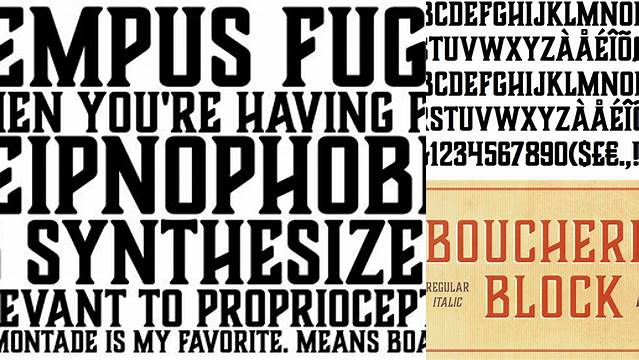
Hey guys! Are you looking for a bold, impactful, and free font to elevate your design projects? Look no further! Let's dive deep into the world of Boucherie Block Bold, a fantastic typeface that's making waves in the design community. In this comprehensive guide, we'll explore everything you need to know about this font, from its origins and characteristics to its best uses and where to download it. Get ready to unleash your creativity with Boucherie Block Bold!
What is Boucherie Block Bold?
Let's start with the basics. Boucherie Block Bold is a display font known for its strong, blocky, and vintage-inspired aesthetic. Think old-school butcher shops, classic signage, and a touch of industrial charm. This font exudes confidence and commands attention, making it an excellent choice for headlines, logos, posters, and anything else that needs to make a statement. Its robust letterforms and clean lines give it a timeless quality, blending the best of vintage appeal with modern readability. One of the key characteristics of Boucherie Block Bold is its unwavering boldness. Each character is designed to be substantial and impactful, ensuring that your message is delivered with maximum force. The letterforms are carefully crafted to maintain legibility even at large sizes, making it a versatile option for a wide range of applications. This makes it a favorite among designers who appreciate fonts that combine aesthetic appeal with practical functionality. Whether you're working on a branding project, a website design, or a print campaign, Boucherie Block Bold can add a touch of retro sophistication and visual punch. Its distinctive style helps your work stand out, making it an invaluable asset in any designer's toolkit. The font’s versatility extends to various design contexts, from the rustic charm of vintage-inspired projects to the bold statements of modern advertising. Its ability to adapt to different styles and themes makes it a reliable choice for any project that calls for a strong, classic typeface. So, if you’re aiming to create designs that resonate with a sense of timeless appeal and impactful presence, Boucherie Block Bold is a font that deserves your attention. Its robust structure and elegant design blend seamlessly, providing a unique typographic solution for your creative needs.
So, what makes Boucherie Block Bold so special? Let's break down its key features:
Bold and impactful: As the name suggests, this font is all about making a statement. Its thick strokes and solid letterforms demand attention and create a powerful visual presence. The boldness of Boucherie Block Bold ensures that your text stands out, whether it's used in a headline, a logo, or a promotional poster. The font's robust nature adds weight and emphasis to your message, making it ideal for designs that need to grab the viewer's attention instantly. In a world where visual communication is key, having a font that can deliver impact is crucial, and Boucherie Block Bold does just that. Its design is not just about being loud; it's about being authoritative and clear, ensuring your message is understood and remembered. This makes it a go-to choice for designers looking to convey strength and confidence in their work.
Vintage-inspired design: Boucherie Block Bold draws inspiration from classic signage and butcher shop typography. This gives it a nostalgic feel that can add character and charm to your designs. The vintage aesthetic of the font evokes a sense of history and craftsmanship, making it perfect for projects that aim to create a timeless or retro vibe. The design elements reminiscent of old-fashioned signs and labels bring a unique authenticity to your work, helping to connect with audiences on an emotional level. This vintage touch is not just about aesthetics; it's about storytelling. By using Boucherie Block Bold, you're adding a layer of narrative to your design, suggesting quality, tradition, and a connection to the past. It’s an excellent way to infuse your projects with a sense of heritage and timelessness, making it particularly effective for branding, packaging, and promotional materials that seek to convey a sense of history and reliability.
Clean and legible: Despite its bold appearance, Boucherie Block Bold is surprisingly easy to read. The letterforms are well-defined and spaced, ensuring clarity even at smaller sizes. The font's legibility is a crucial aspect of its design, as it ensures that the boldness doesn't come at the expense of readability. The clean lines and well-formed characters make it easy for the eye to follow, whether it's used in a short headline or a longer paragraph. This balance between boldness and clarity is what makes Boucherie Block Bold such a versatile typeface. It allows designers to use a strong, impactful font without sacrificing the ability to communicate effectively. The attention to detail in the letterforms ensures that each character is distinct and easily recognizable, which is essential for creating designs that are both visually striking and functional. This makes it a reliable choice for various applications, from web design to print media, where readability is paramount.
Versatile: Boucherie Block Bold works well in a variety of design contexts. It's great for headlines, logos, posters, packaging, and more. The versatility of Boucherie Block Bold is one of its most appealing qualities. It can adapt to a wide range of design needs and styles, making it a valuable asset in any designer's toolkit. Whether you're working on a branding project that requires a strong, memorable logo, or designing a poster that needs to grab attention, this font can deliver the impact you need. Its robust design and clear legibility make it equally suitable for digital and print applications, providing a consistent look and feel across different media. This adaptability extends to various industries as well, from food and beverage to fashion and entertainment. The font’s ability to convey both a vintage and modern aesthetic means it can be used in diverse projects, making it a reliable choice for any creative endeavor. The key to its versatility lies in its balance of boldness, clarity, and style, which allows it to complement a wide range of design elements and visual themes.
Best Uses for Boucherie Block Bold
Now, let's talk about where Boucherie Block Bold really shines. Here are some ideal uses for this fantastic font:
Headlines and titles: Boucherie Block Bold is a natural fit for headlines and titles. Its bold presence commands attention and makes your message impossible to ignore. The font’s strong, authoritative nature ensures that your headings stand out, drawing the reader's eye and creating a clear hierarchy of information. This makes it an excellent choice for websites, posters, and print materials where the headline needs to make a powerful statement. The bold letterforms not only grab attention but also convey confidence and importance, making the title the focal point of the design. Whether you're crafting a catchy headline for a blog post or designing a title for a book cover, Boucherie Block Bold provides the visual punch needed to make an impact. Its clarity and legibility also ensure that the message is easily understood, which is crucial for effective communication. By using Boucherie Block Bold for your headlines, you're setting the tone for your design and ensuring that your message is heard loud and clear.
Logos and branding: If you're looking for a font that will make your brand stand out, Boucherie Block Bold is an excellent choice. Its distinctive style can help you create a memorable logo that reflects your brand's personality. The font’s unique combination of vintage charm and modern boldness makes it an ideal option for brands that want to convey a sense of heritage while maintaining a contemporary edge. Its robust letterforms ensure that your logo is highly visible and easily recognizable, which is essential for brand recognition. Whether you're designing a logo for a new business or rebranding an existing one, Boucherie Block Bold can add a touch of sophistication and strength. The font’s versatility also allows it to be adapted to different branding styles, from rustic and industrial to classic and elegant. By using Boucherie Block Bold in your logo and branding materials, you're creating a cohesive visual identity that resonates with your target audience, making your brand memorable and impactful.
Posters and signage: Need to create a poster or sign that grabs attention? Boucherie Block Bold is your go-to font. Its bold letters are easy to read from a distance, making it perfect for advertising and promotional materials. The font’s inherent boldness ensures that your message is visible and impactful, whether it’s a small flyer or a large billboard. Its vintage-inspired design adds a touch of character and charm, making your posters and signs stand out in a crowded environment. Boucherie Block Bold is particularly effective for businesses that want to convey a sense of history or craftsmanship, but its versatility makes it suitable for a wide range of applications. Whether you’re advertising a sale, promoting an event, or simply directing people, this font will help you communicate effectively. By using Boucherie Block Bold for your posters and signage, you’re making a statement that is both visually appealing and highly functional, ensuring that your message reaches your audience.
Packaging design: Boucherie Block Bold can add a touch of vintage flair to your packaging designs. It's especially well-suited for products that want to convey a sense of quality and craftsmanship. The font’s classic aesthetic evokes a feeling of tradition and authenticity, making it ideal for products that emphasize their heritage or handcrafted nature. Its bold letterforms ensure that your packaging stands out on the shelves, grabbing the attention of potential customers. Boucherie Block Bold works particularly well for products in the food and beverage industry, as it recalls the typography of old-fashioned butcher shops and markets. However, its versatility extends to other industries as well, from cosmetics to apparel. Whether you’re designing labels, boxes, or bags, this font can add a distinctive touch that enhances the overall appeal of your packaging. By using Boucherie Block Bold, you’re creating a visual connection with your customers, conveying a sense of quality and craftsmanship that sets your product apart.
So, there you have it, guys! Boucherie Block Bold is a fantastic font that can add a touch of vintage charm and boldness to your designs. Whether you're working on a logo, poster, or website, this font is sure to make a statement. Just remember to use it wisely and pair it with a complementary font for the best results. Now go ahead and unleash your creativity with Boucherie Block Bold! Its unique blend of classic and contemporary design elements makes it a versatile choice for a wide range of projects. The font’s bold and impactful nature ensures that your message is delivered with clarity and strength, while its vintage-inspired aesthetic adds a touch of nostalgia and character. By following the tips outlined in this guide, you can effectively incorporate Boucherie Block Bold into your designs, creating visually compelling and memorable pieces. The availability of the font for free personal use makes it an accessible option for designers of all levels, encouraging experimentation and creativity. So, take advantage of this fantastic typeface and explore the endless possibilities it offers for enhancing your design work. With Boucherie Block Bold, you can bring a distinctive and impactful typographic element to your projects, helping you to stand out and make a lasting impression.